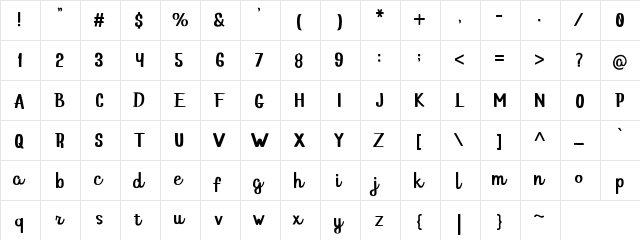
Hello Dina Script Regular
| Foundry | Debut Studio |
| Designer | Debut Studio |
Design Context for Hello Dina Script Typeface
Hello Dina Script flows with the natural rhythm of handwritten lettering, making it ideal for designs that call for warmth and personal expression.
Font Pairing: Combine Hello Dina Script with a simple geometric sans for maximum contrast — the tension between flowing curves and clean structure is a classic typographic pairing.
Pro Tip: Pair Hello Dina Script with a clean sans-serif for supporting text. The contrast between fluid script and geometric structure creates an elegant typographic hierarchy.